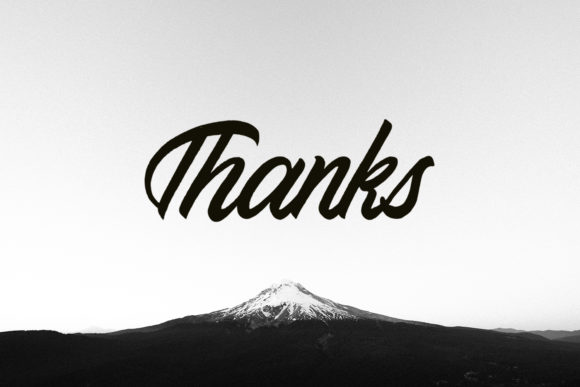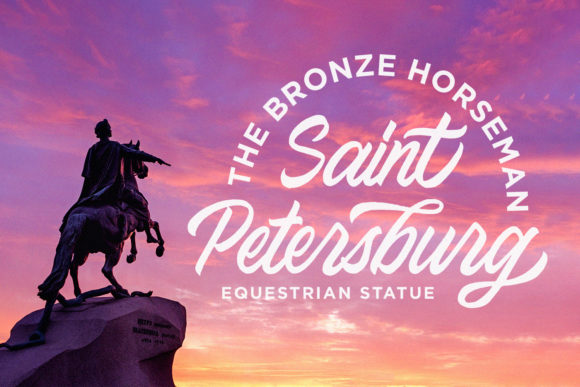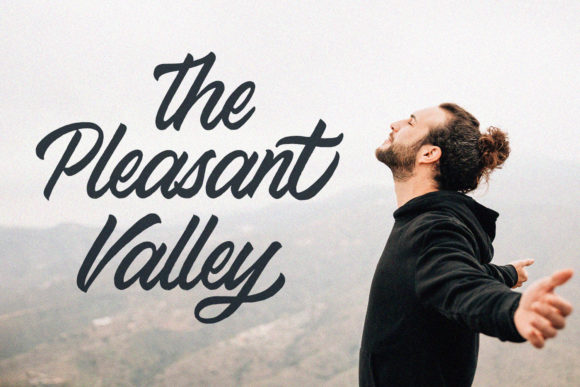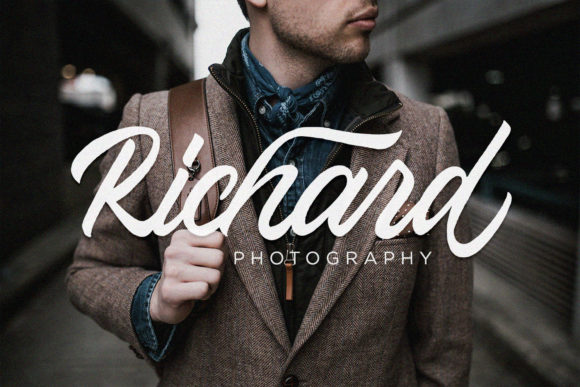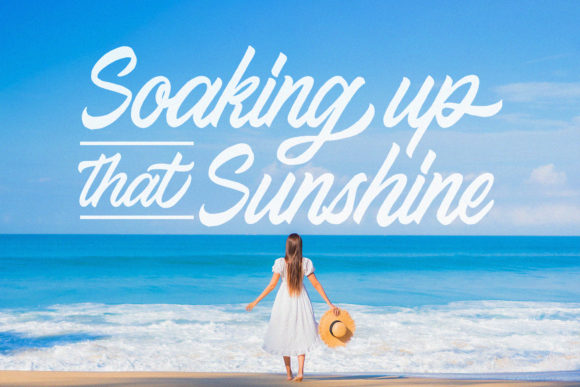
About Northing Font
Northing is a stunning script font with authentic and casual feels. It will be perfectly used for Branding, Logo Design, Lettering, Logotype, Clothing, Poster, magazine, packaging, posters, shopping bags, t-shirts, book covers, photography, special events and other design project.